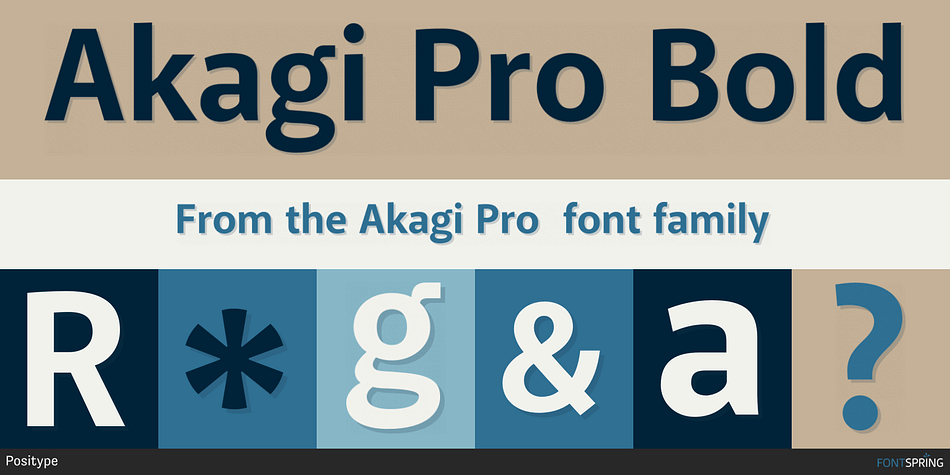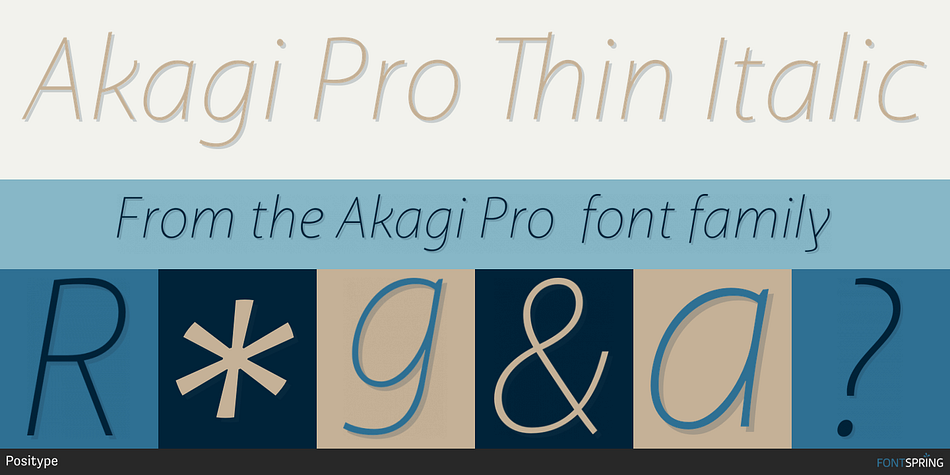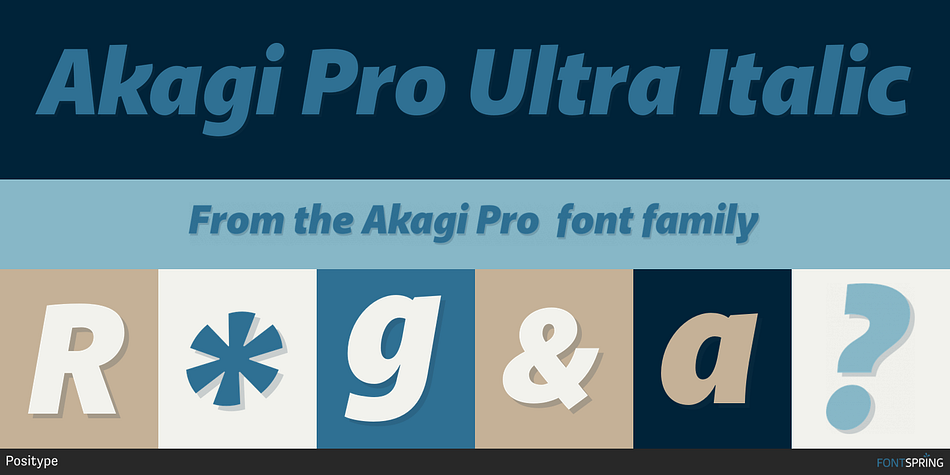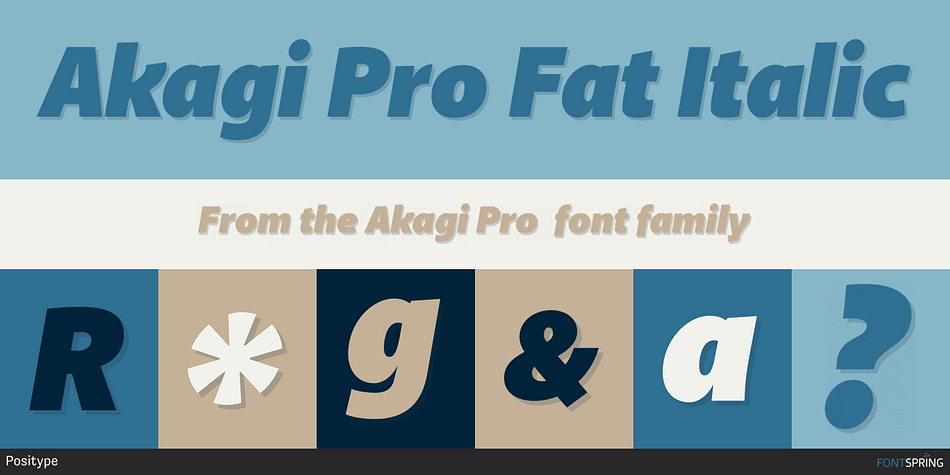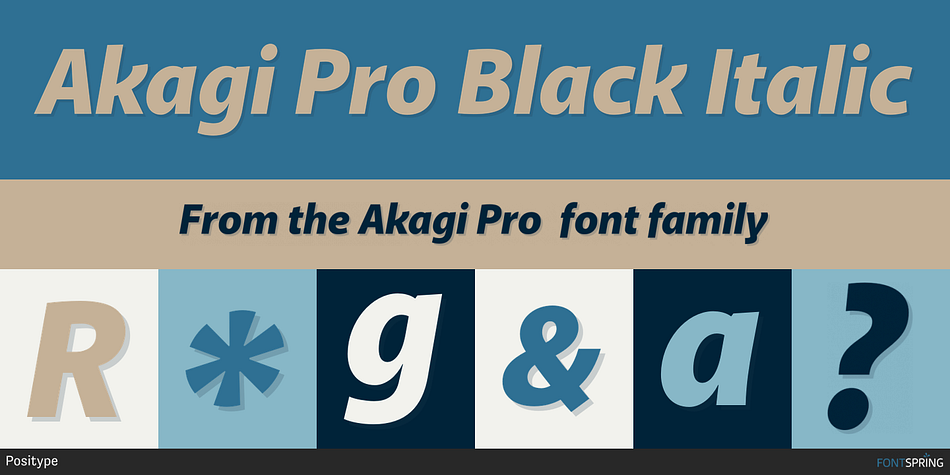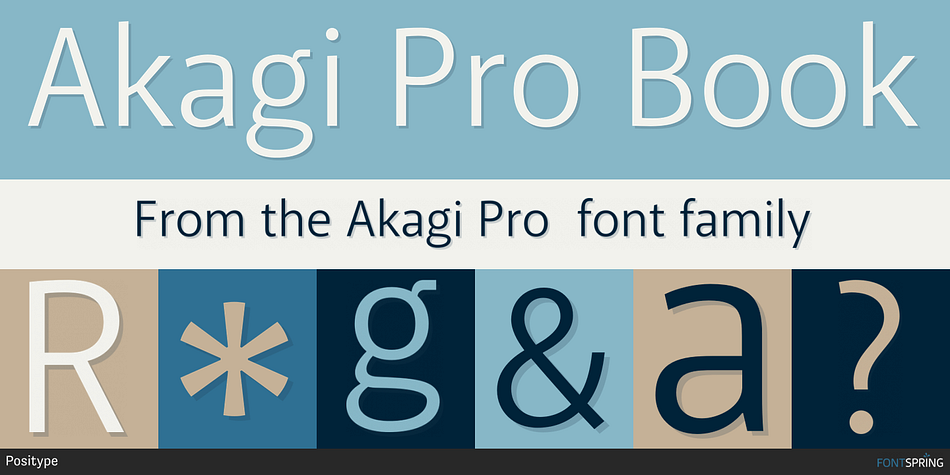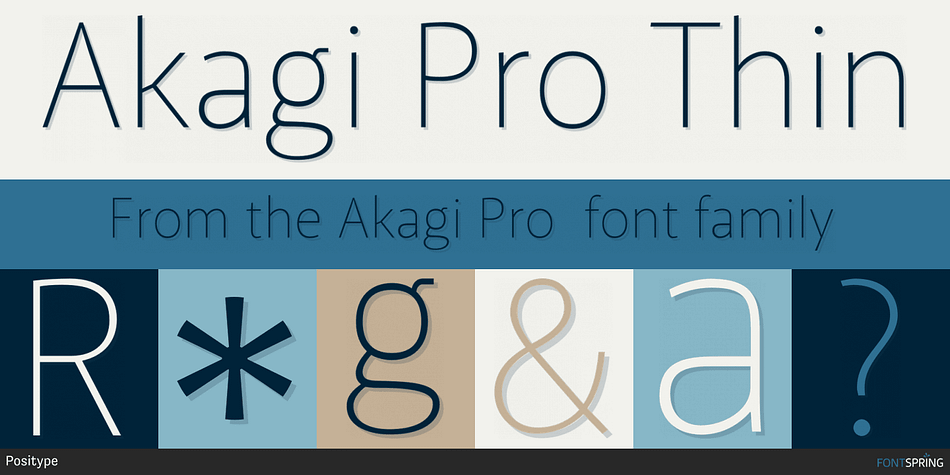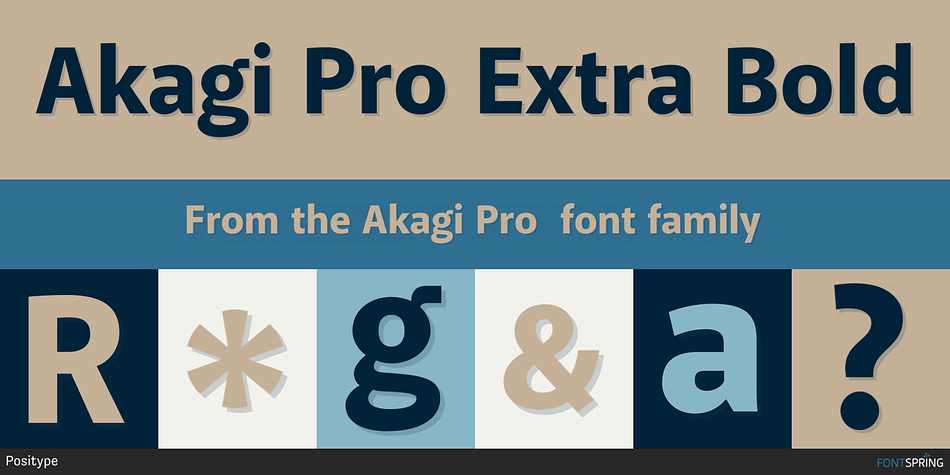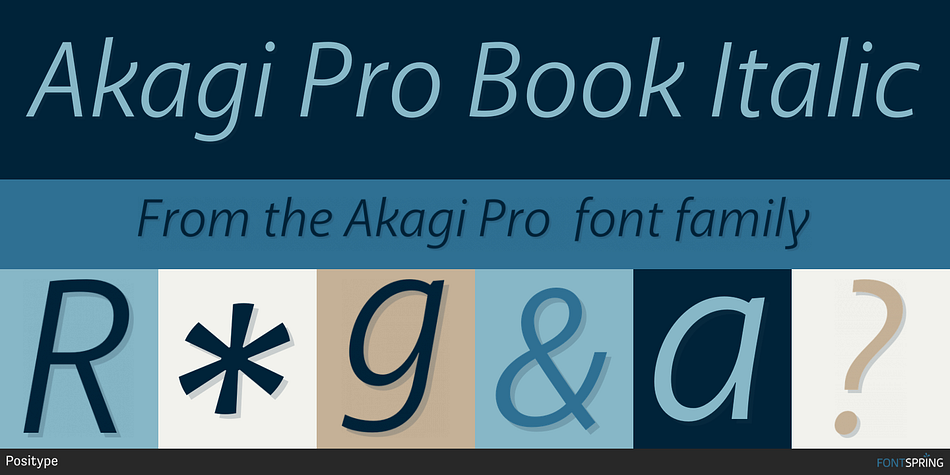
Designed by Neil Summerour, Akagi Pro is a sans serif font family. This typeface has twenty-two styles and was published by Positype.
Akagi Pro is a complete rebuild and expansion of my popular Akagi typeface. Contemporary, clean, simple and friendly continue to serve as the adjectives for an expansion that includes 250+ additional characters per weight, many new ligature options, expanded stylistic alternates, 4 sets of figures, new symbols, case-sensitive punctuation, superscripts, subscripts, ordinals, expanded language support and two new styles that provide even more flexibility within the lighter weights of the family. When I designed Akagi in 2007, I wanted this new sans serif to “smile” at you — with this new expansion, I hope you smile back.
Akagi Pro is economical while keeping a distinctive, expressive personality on the page that distinguishes it from among many of the mechanical/rigid/emotionless sans out there without becoming cliché. Perfect for the page and the screen, the flexible weights available allow for pinpoint selection at whatever size.
Each style of Akagi Pro has a robust character set made even more functional with expansive OpenType features. A typesetter’s dream — case-sensitive punctuation, tabular and proportional variants of lining and oldstyle numerals, true italics, small caps, expansive language support, an alternate ‘g’ and ‘y’, highlight a wealth of features of the typeface. This versatility infused within Akagi Pro will allow it to assume both roles of the utilitarian workhorse and light-hearted go-to typeface — and make the user happy.